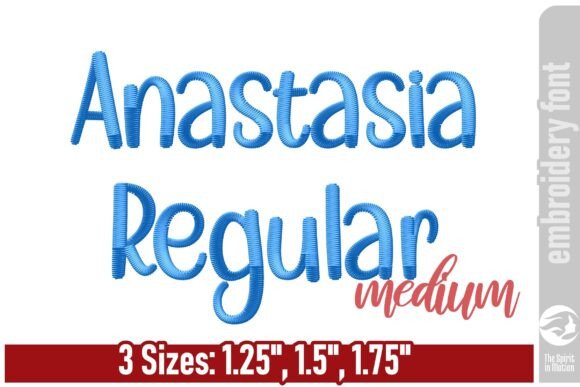
Anastasia Embroidery Font – Medium
Presenting the Anastasia, a merrily fluid and balanced handwritten font. Its charm promises to breathe life into your embroidery projects. Perfect for personalizing clothing, accessories, or home décor. With its playful, feminine style and clean letterforms, it’s a delightful choice for names, sayings, and fun designs.